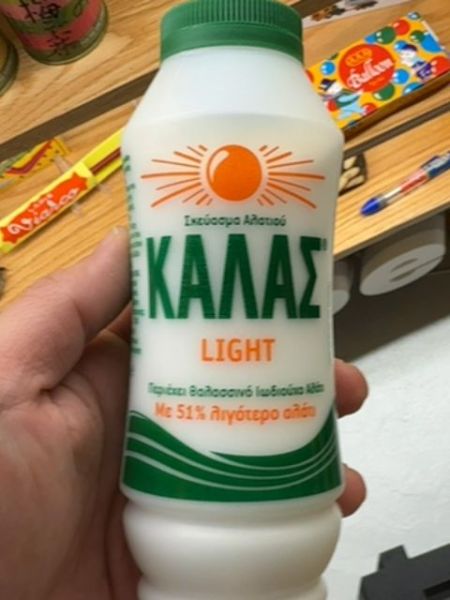
Kalas Light
A sea salt product that contains 51% less sodium than regular salt.
Greece
The typography prominently features a bold, sans-serif font in green for the brand name 'KALAS', providing a clean and modern look. The word 'LIGHT' is written in a thinner, orange sans-serif font, creating a visual hierarchy that emphasizes the product's key feature. The overall typographic arrangement is straightforward and easily legible.
The packaging is a tall, white plastic bottle with a green screw cap. It features a central design element of a sun graphic in orange, which adds a vibrant contrast against the white background.
- The product is made from sea salt.
- It has reduced sodium content.
- The brand uses iodized salt.